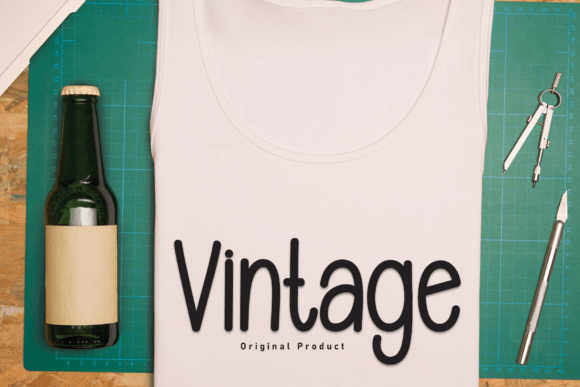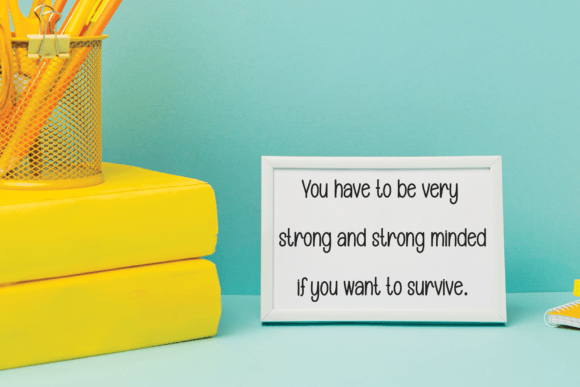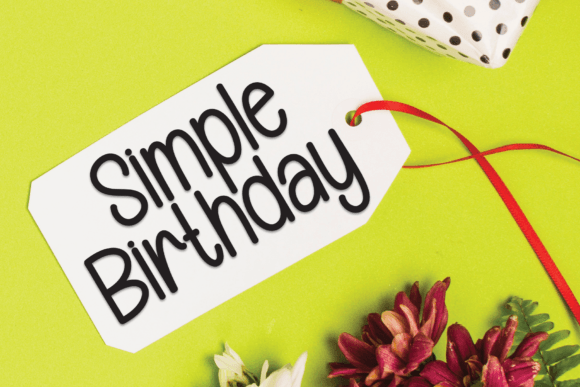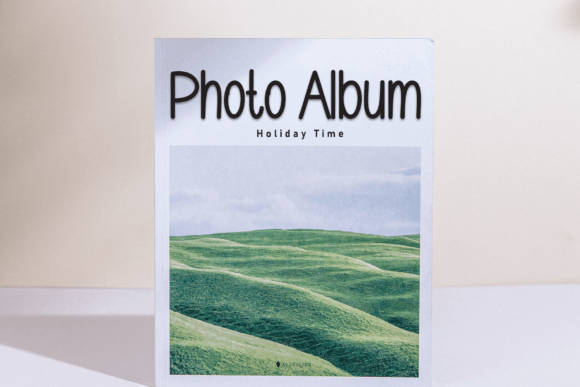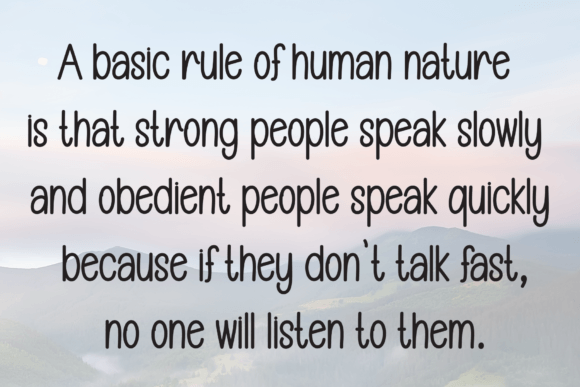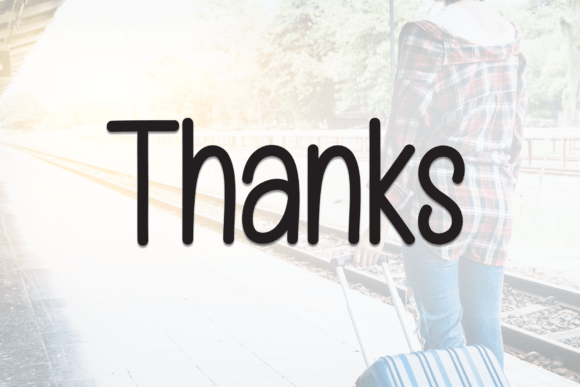
Goodbye Font: Where Creativity Meets Personality
Have you ever stared at a blank page, searching for the perfect font to bring your design to life? We’ve all been there – pouring over font libraries, testing different styles, and tweaking until the perfect fit emerges. It’s a moment of pure creative joy, and it’s exactly what the Goodbye Font is designed to evoke.
Goodbye is a sweet and friendly handwritten font that’s as versatile as it is charming. Its natural and unique style makes it an instant favorite among designers, who appreciate its ability to add a personal touch to any project. Whether you’re creating a wedding invitation, a children’s book, or a brand identity, Goodbye Font is the perfect companion to bring your vision to life.
With its limitless possibilities, Goodbye Font is a valuable addition to any designer’s toolkit. So why settle for a generic font when you can say goodbye to bland designs and hello to a world of creative expression?
Goodbye Font Key Features
- Font Family: Goodbye is a sans-serif typeface designed to evoke a sense of nostalgia and warmth.
- Unique Characteristics: Features a distinctive, hand-drawn feel with subtle imperfections and a warm, analog aesthetic.
Designer Review: Goodbye Font
As a designer, I was excited to dive into Goodbye Font, a sans-serif typeface that promises to bring a modern touch to your projects. Here’s my honest take:
- Goodbye Font’s sleek lines and minimalist aesthetic make it perfect for contemporary designs.
- The font’s x-height is well-balanced, making it easy to read at various sizes.
- The font family includes a range of weights, from light to bold, giving designers flexibility in their projects.
- The font’s lack of italic and oblique styles limits its usability in certain design scenarios.
- The font’s rounded edges can make it appear slightly generic, especially when used in large blocks of text.
- The font’s metrics and spacing can be inconsistent across different weights, which may require additional adjustments.
Overall, Goodbye Font is a solid addition to any designer’s toolkit, but its limitations prevent it from being a go-to choice. While it excels in modern, clean designs, it may not be the best fit for projects requiring more complex typography.
Getting the Most Out of Goodbye Font
To get the most out of Goodbye Font, use it sparingly to add emphasis and create visual interest.
Pair Goodbye Font with other fonts to create a unique and eye-catching design.
Goodbye Font is perfect for:
1. Headings and titles
2. Emphasis and highlighting
3. Creating a unique and eye-catching design